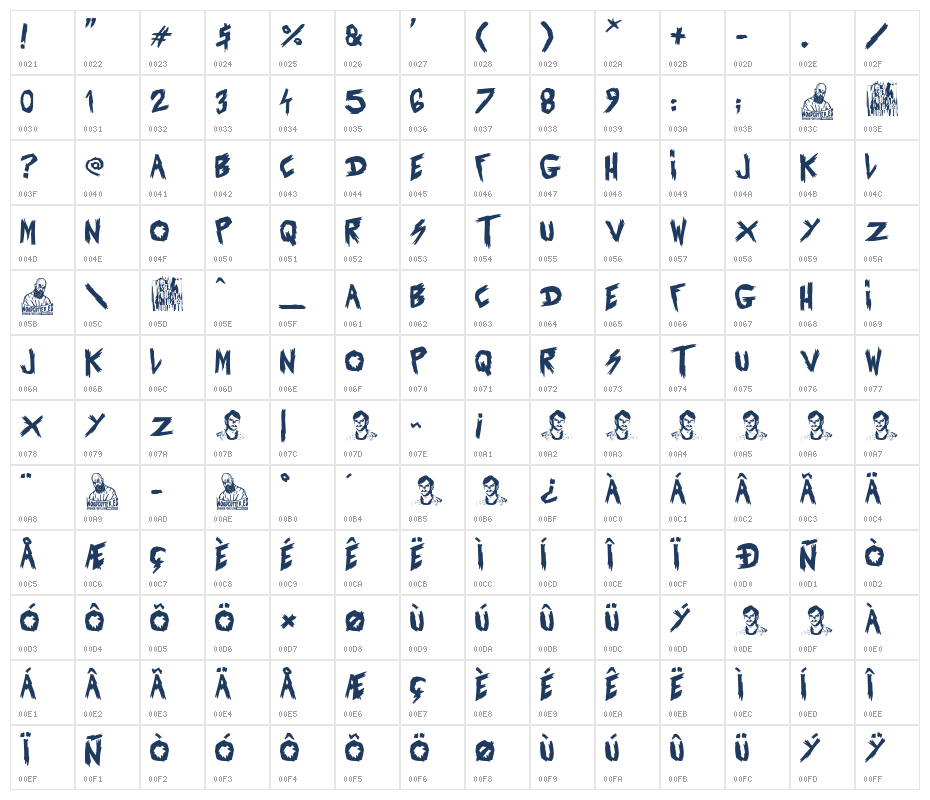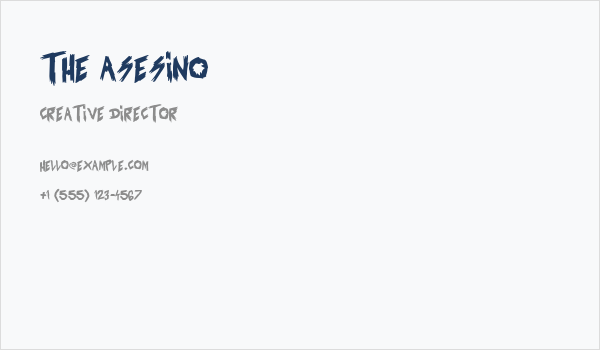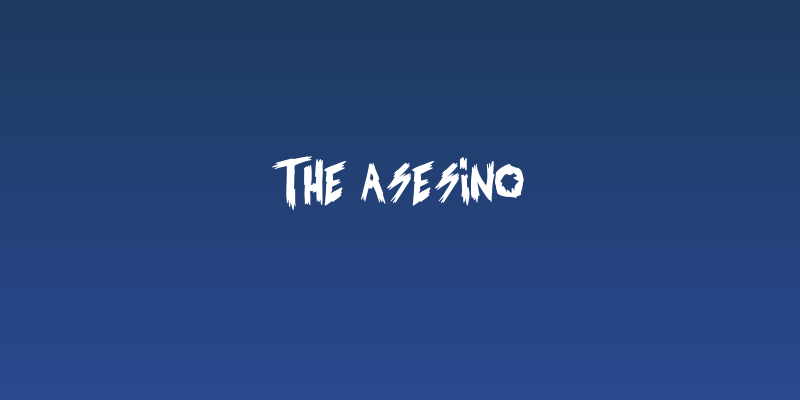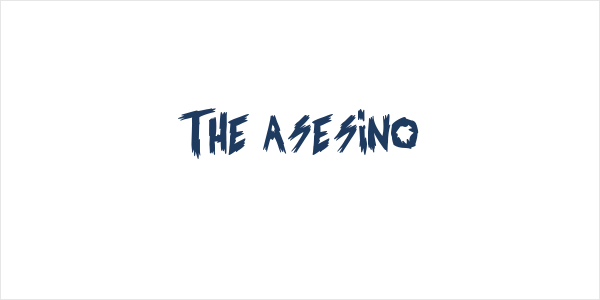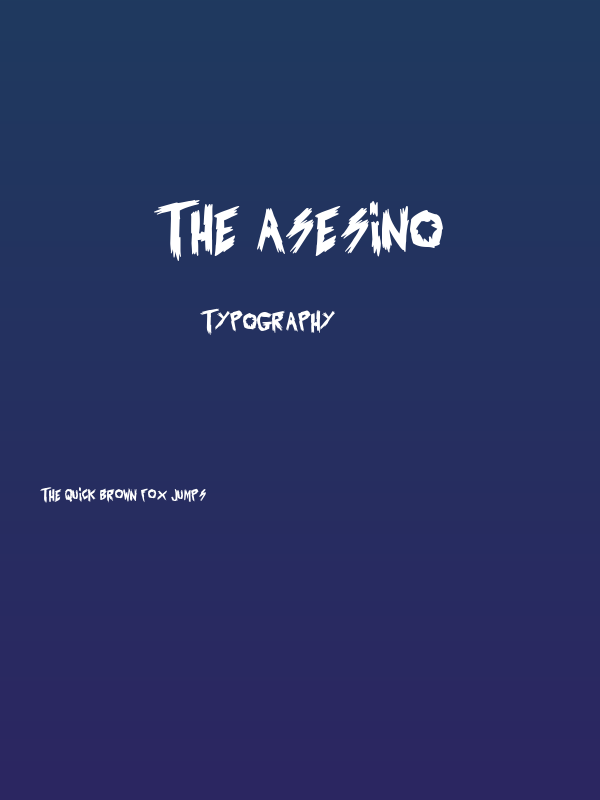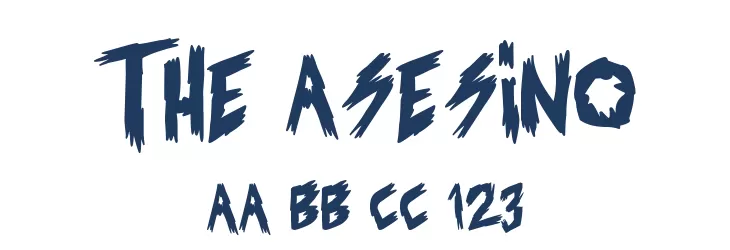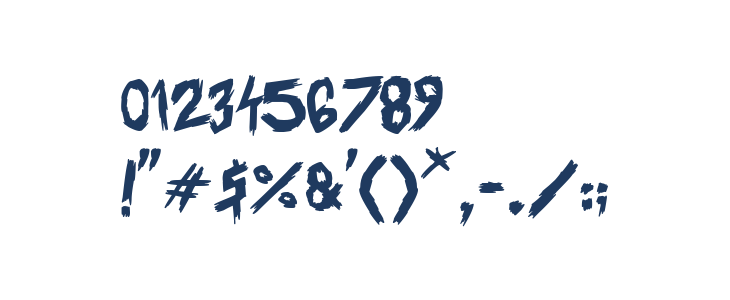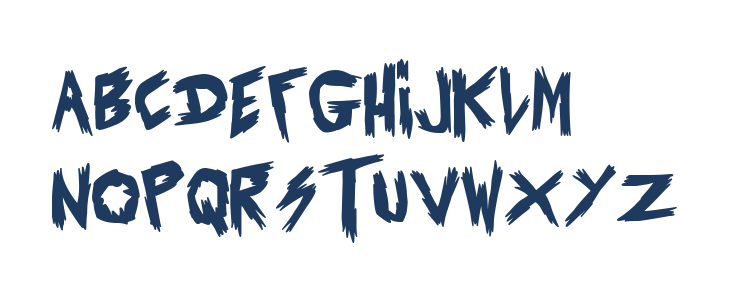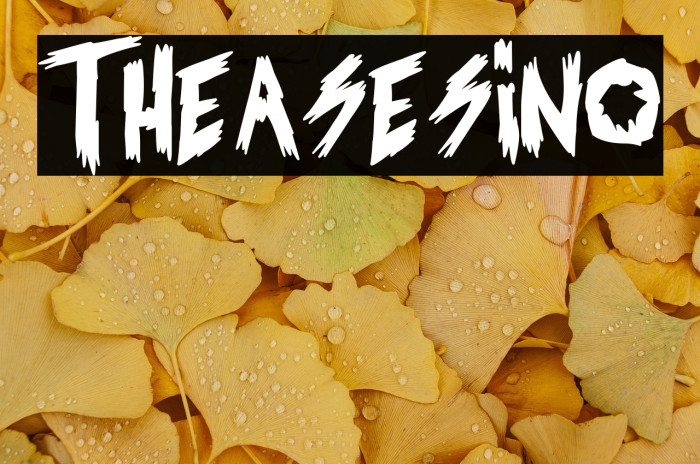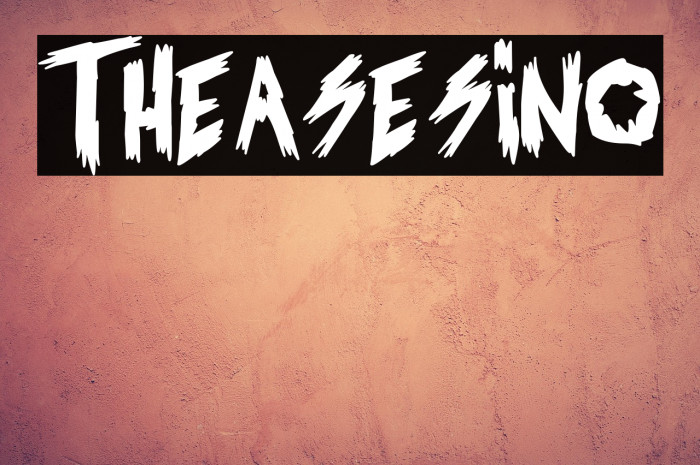
The Asesino Font
The Asesino Description
A bold, jagged, graffiti-style font with a rough, energetic appearance, featuring irregular strokes and a dynamic, edgy look.
| Overall Style | Urban, Edgy, Graffiti |
| Use Case | Headlines, Posters, Logos, Youth branding |